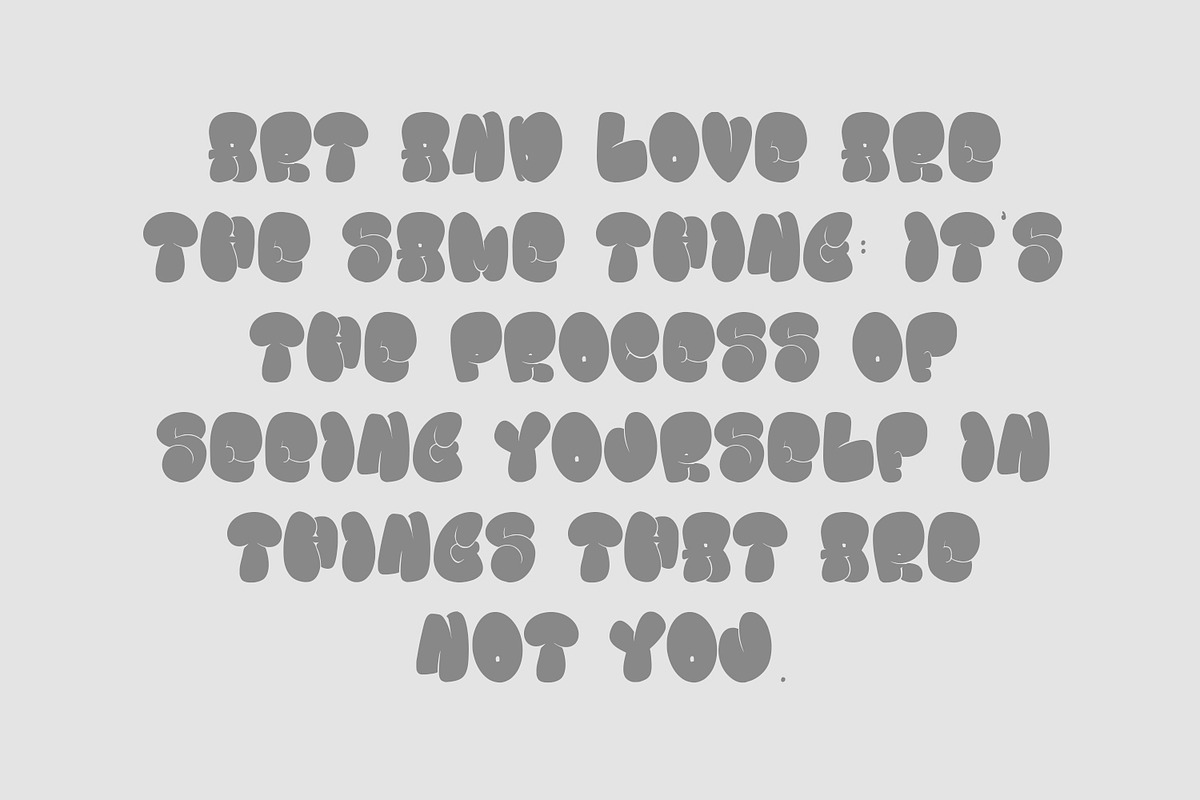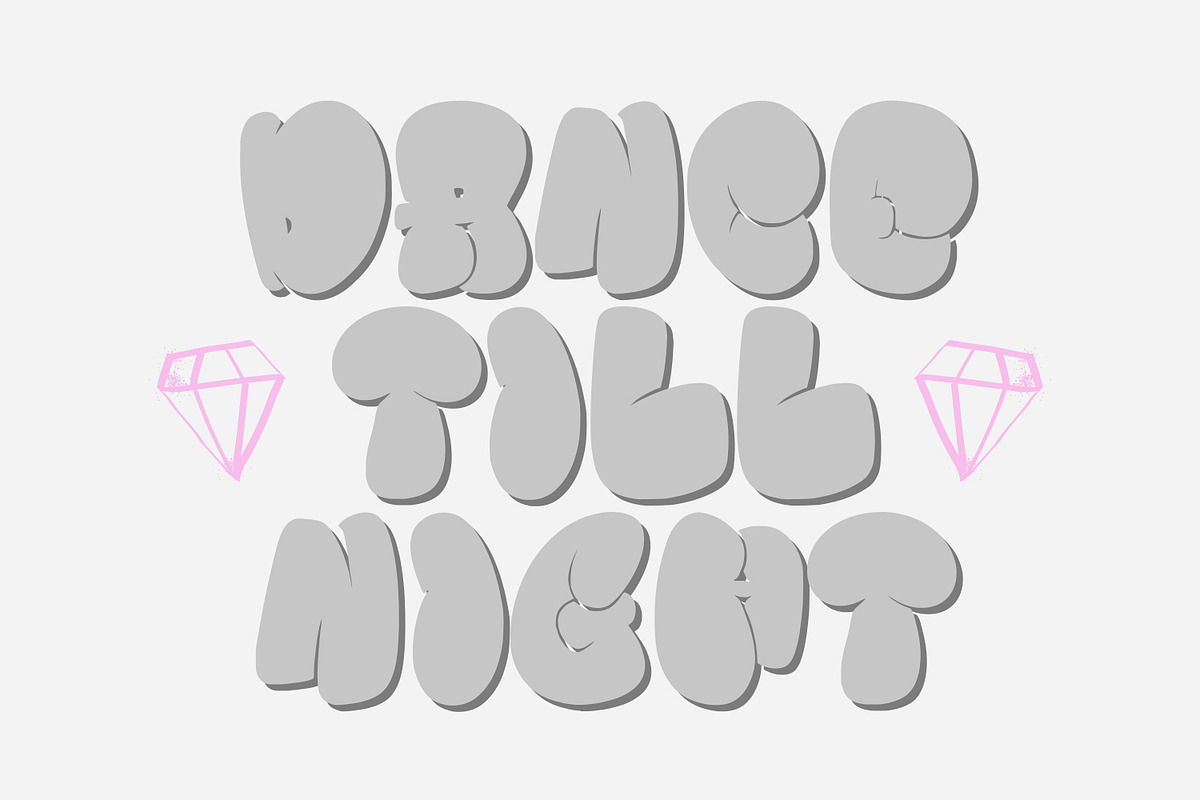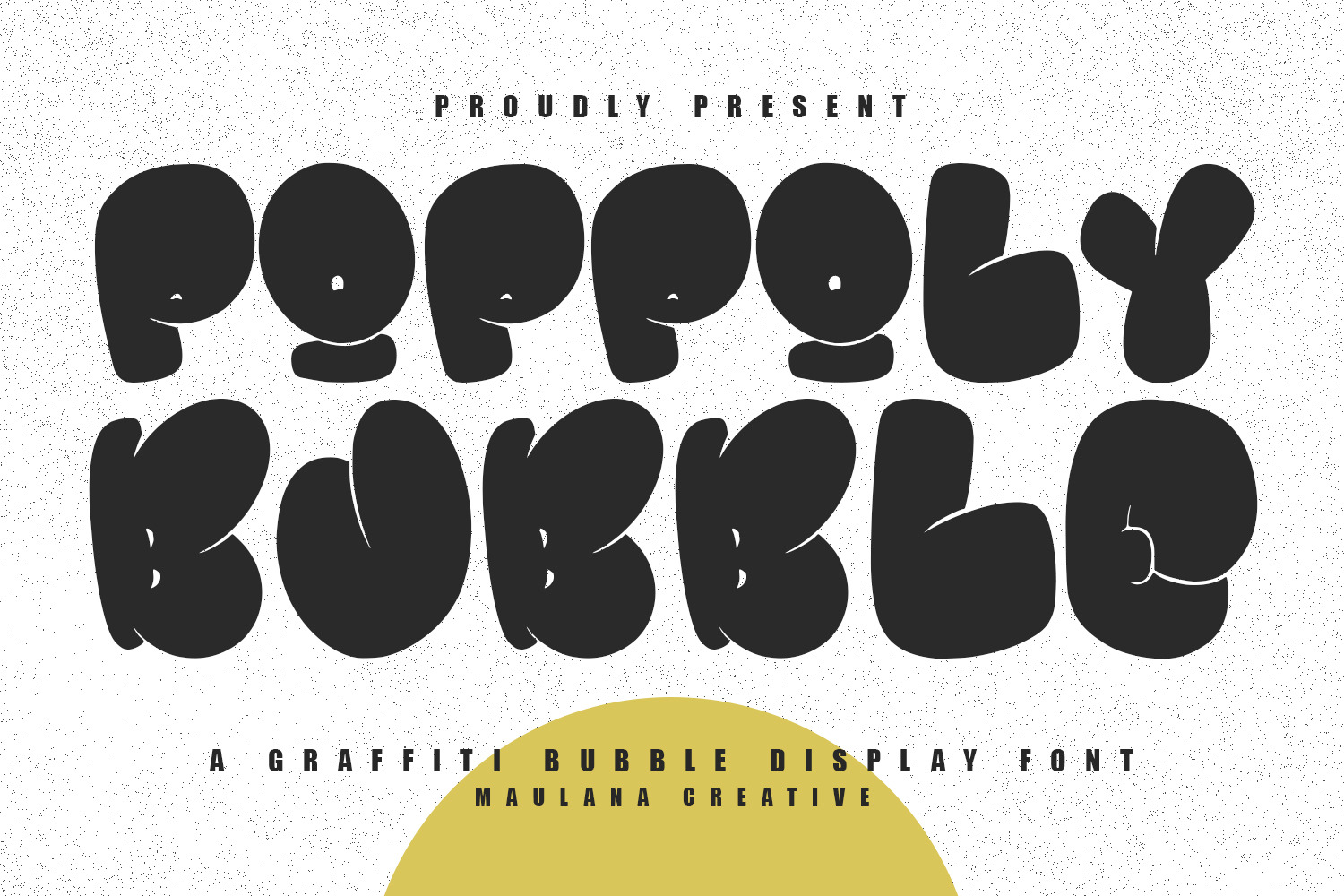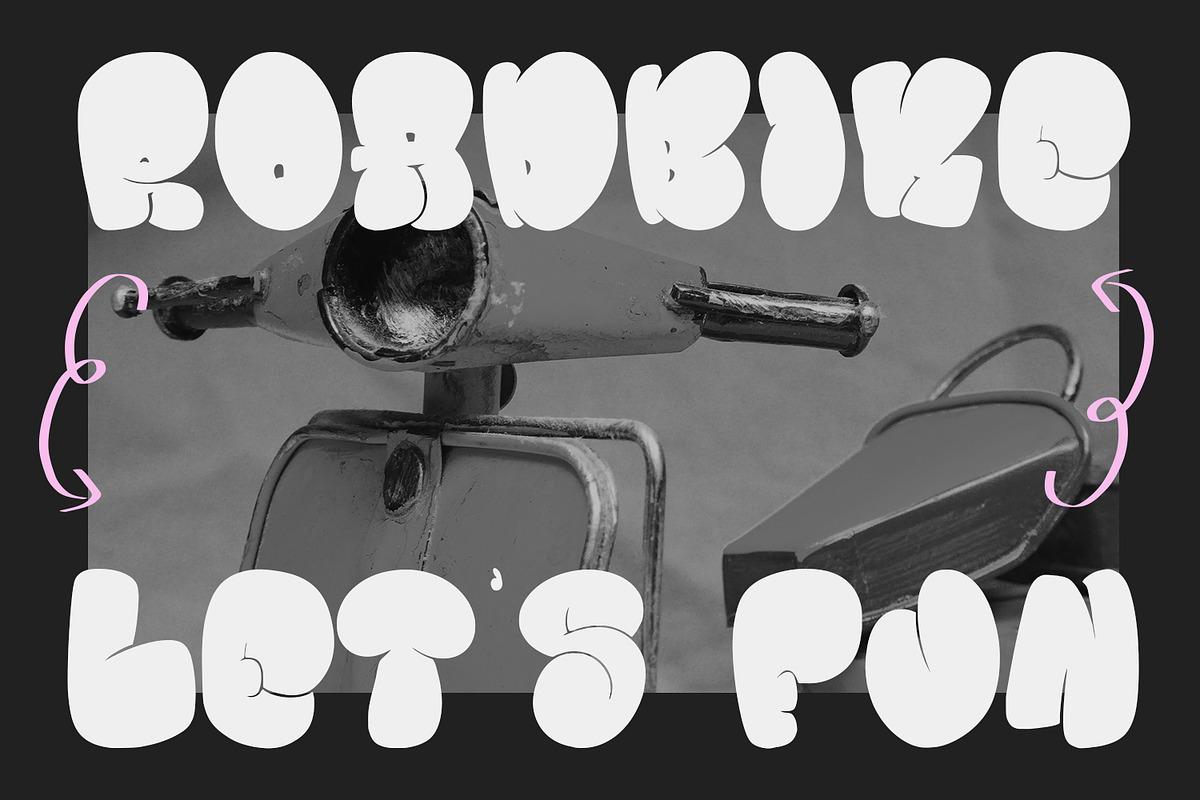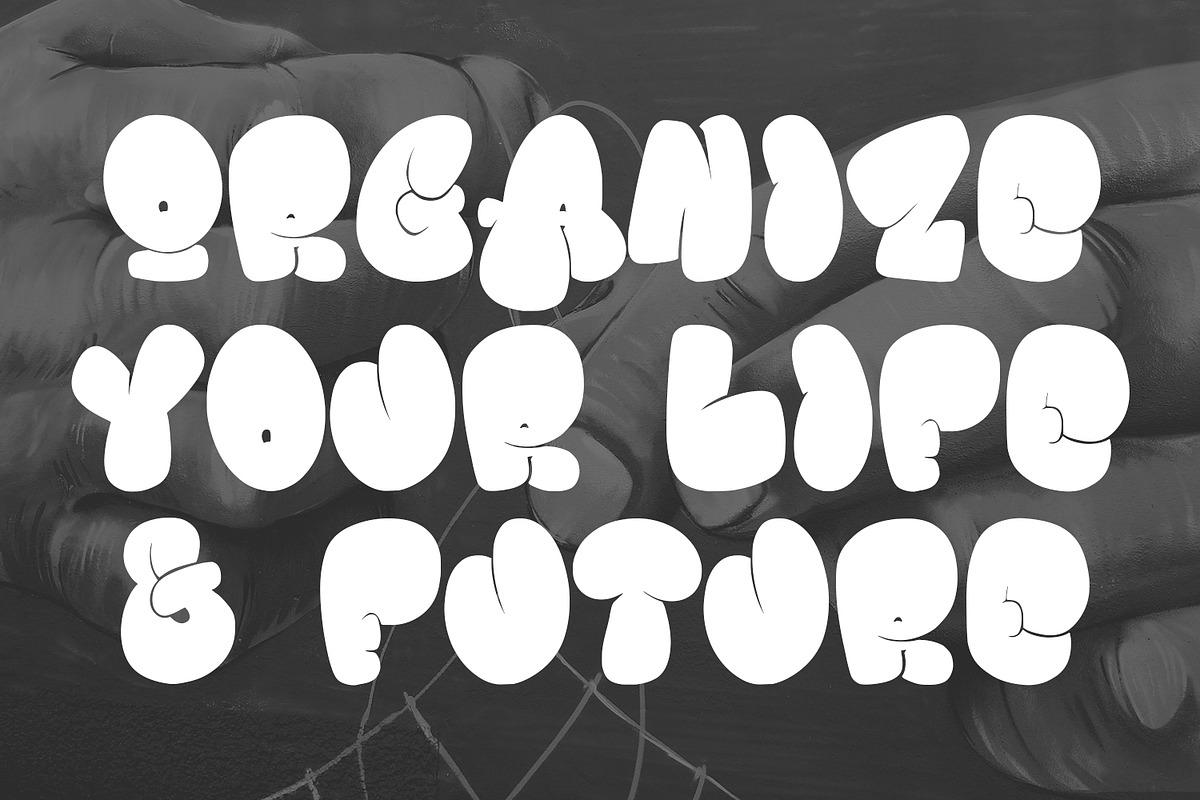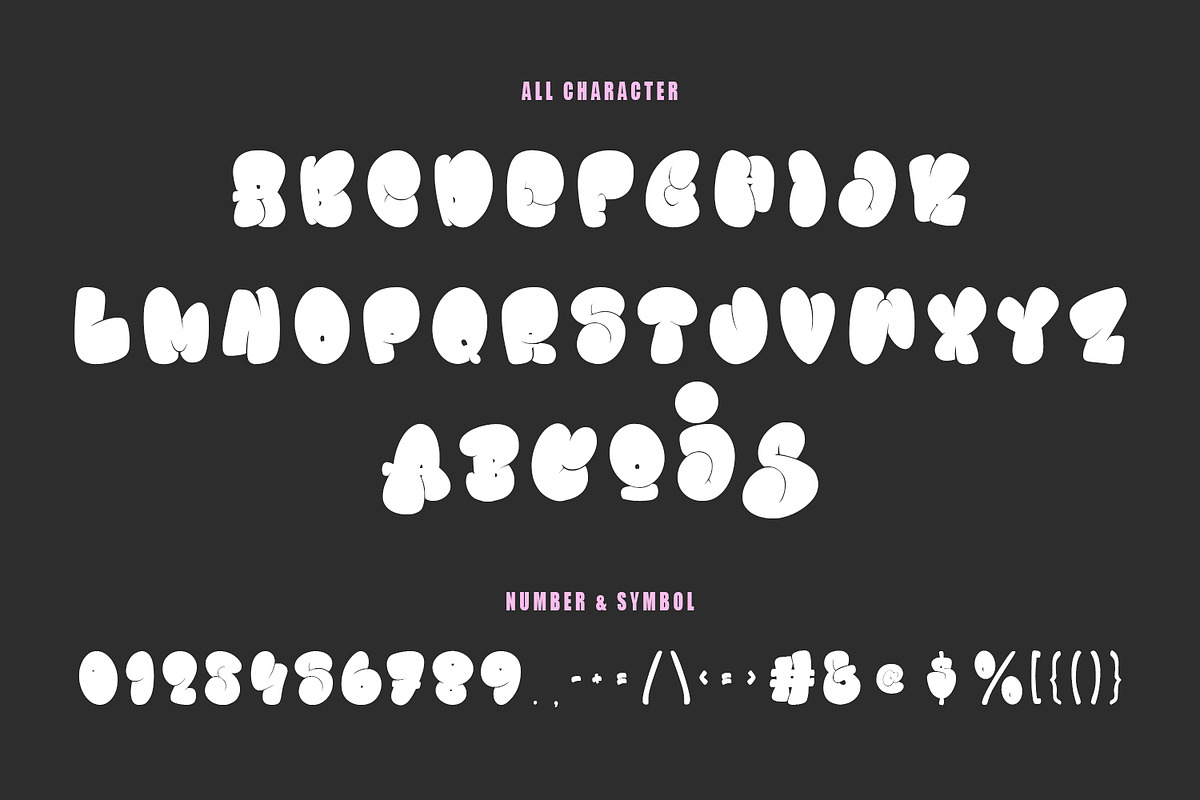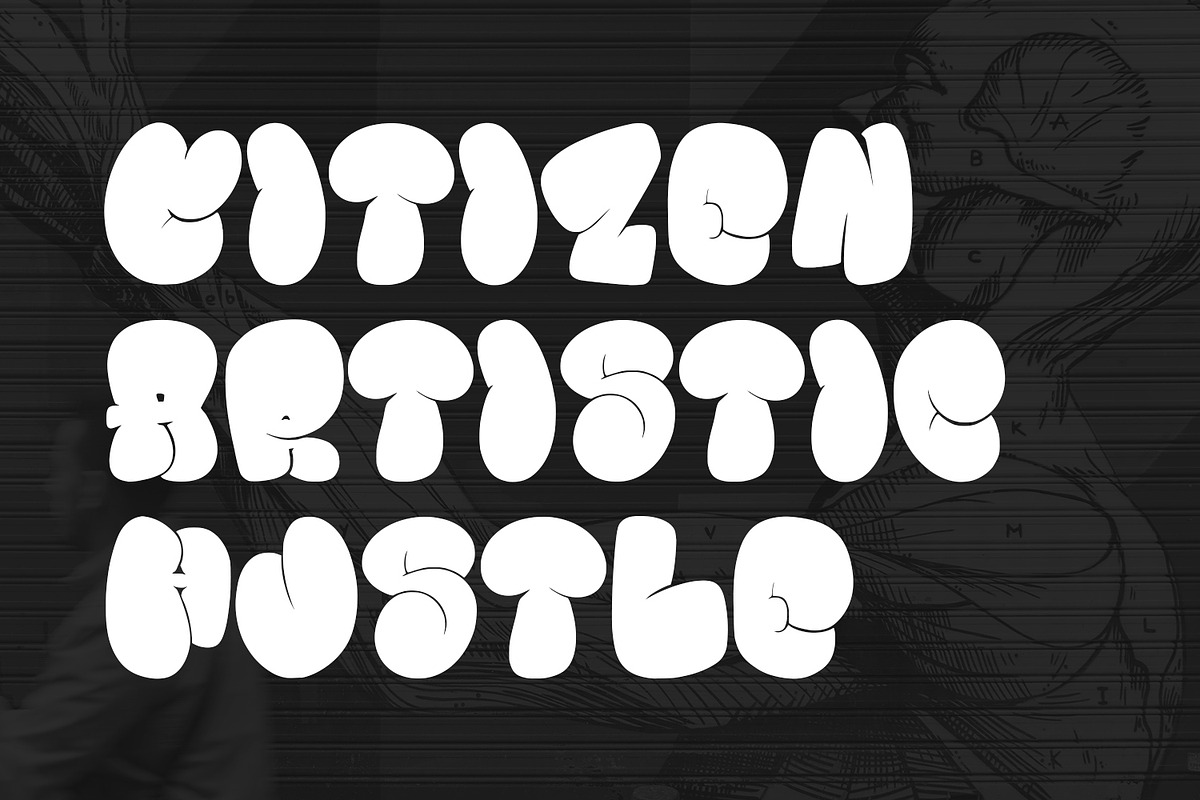
Poppoly Graffiti Bubble Display Font
Poppoly graffiti display font. With bold stroke, fun character with alternates. To give you an extra creative work. Poppoly graffiti display font support multilingual language. This font is good for logo design, Social media, Movie Titles, Books Titles, a short text even a long text letter and good for your secondary text font with script or serif. Make a stunning work with Poppoly graffiti display font.